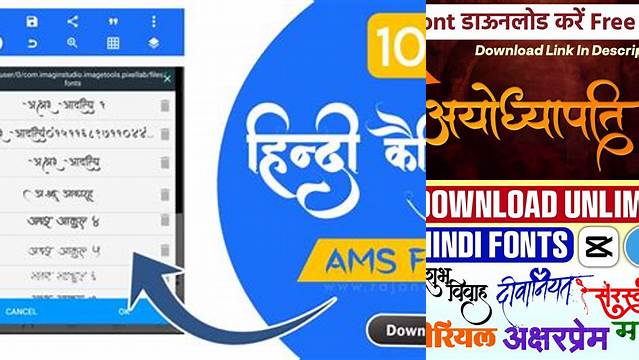
Free Hindi Calligraphy Fonts For PixelLab: Download Guide
Hey guys! If you're looking to spice up your designs with some beautiful Hindi calligraphy, you've come to the right place. In this guide, we'll dive into everything you need to know about finding and using free Hindi calligraphy fonts in PixelLab. Get ready to add that artistic touch to your projects, whether you're a seasoned designer or just starting out. Let's get started!
1. Why Use Hindi Calligraphy Fonts in PixelLab?
So, why bother with Hindi calligraphy fonts in the first place? Well, the answer is pretty simple: they add a unique flair and cultural richness to your designs. Hindi calligraphy fonts can instantly transform a plain text message into something visually stunning and emotionally engaging. Think about it – a simple greeting card becomes a work of art, a social media post grabs attention, and a poster truly stands out from the crowd. PixelLab, being a versatile mobile graphic design app, makes it super easy to incorporate these fonts. The ability to personalize your content with fonts that reflect a specific culture or style gives your designs a professional and polished appearance. Plus, using calligraphy fonts can help you express complex emotions and ideas in a way that plain text simply can't match. By choosing the right Hindi calligraphy font, you are not just adding text, you are adding personality and depth to your creative endeavors. It's about connecting with your audience on a deeper level and making your message memorable. Remember, a well-chosen font can speak volumes, conveying everything from joy and celebration to seriousness and contemplation. With PixelLab and these amazing fonts, you'll have all the tools you need to make your designs pop.
Benefits of Using Hindi Calligraphy Fonts
Using Hindi calligraphy fonts in PixelLab offers several advantages. Firstly, it helps you connect with a broader audience. India has a rich cultural heritage, and incorporating Hindi script can resonate with a large segment of the population. Secondly, it adds a touch of artistry to your designs. Calligraphy fonts are inherently more creative and visually appealing than standard fonts. Thirdly, these fonts enhance the aesthetic appeal of your projects. Whether you're creating posters, social media graphics, or digital art, calligraphy fonts can make your work stand out. These fonts provide a sophisticated and elegant look. Finally, these fonts can be used across various projects. From personal projects to professional endeavors, Hindi calligraphy fonts are incredibly versatile.
4. How to Use Hindi Calligraphy Fonts Effectively in PixelLab
Now comes the fun part: using those awesome free Hindi calligraphy fonts in your PixelLab designs! The key to using these fonts effectively lies in understanding their strengths and limitations. First, select the font that best fits the message you want to convey. Some fonts are elegant and suited for formal occasions, while others are more playful and perfect for casual designs. Experiment with different fonts to see which one complements your overall aesthetic. Consider the context of your design. Is it a social media post, a poster, or something else? Choose a font that is readable and that fits the design's purpose. Next, pay attention to readability. While calligraphy fonts are beautiful, they can sometimes be difficult to read if the text is too small or the design is complex. Ensure that your text is large enough and that there is sufficient contrast between the text and the background. Use these fonts strategically. Avoid overusing them; a touch of calligraphy can be impactful, but too much can be overwhelming. Consider pairing your calligraphy font with a simpler, more legible font for body text or other design elements. Also, consider the spacing. Adjust the line height and letter spacing to ensure readability and visual appeal. Experiment with colors and effects to further enhance your text. Use the color palette to highlight your text. You can also apply effects like shadows, outlines, and textures to create a more dynamic look. Finally, always preview your design on different devices and screen sizes to ensure that your text remains clear and beautiful.
Tips for Stunning Designs
To create stunning designs with Hindi calligraphy fonts, consider the following tips. First, choose fonts that match your design's theme. Use the right colors and effects. Create a hierarchy of text using various font sizes and styles. Always ensure that your text is legible. Pair calligraphy fonts with simpler fonts for body text. Experiment with spacing and contrast. Finally, get feedback from others to improve your designs.
5. Customizing Your Hindi Calligraphy Text
So, you have your text and your chosen free Hindi calligraphy fonts in PixelLab. Now, it's time to get creative and customize your text to make it truly unique! PixelLab offers a variety of tools that let you tweak your text to perfection. Start by adjusting the size, color, and position of your text. You can experiment with gradients, patterns, and textures to add depth and visual interest. PixelLab allows you to play around with shadows, outlines, and 3D effects. Shadows can help your text pop off the background, while outlines can improve its readability. 3D effects can give your text a more realistic look. You can also adjust the spacing between letters (kerning) and lines (leading) to improve readability and visual balance. Also, explore text curving. This feature can be useful for adding text along a curve, perfect for logos or decorative elements. Try combining different effects to create unique styles. The possibilities are endless! Don't be afraid to experiment and try new things. The best way to find what works is by playing around with the different options available in PixelLab. Ultimately, the goal is to make your text not only visually appealing but also perfectly aligned with your overall design aesthetic. Take the time to fine-tune your text, and you'll see how it can elevate your designs from good to great. Remember to preview your design on different devices and screen sizes to make sure everything looks perfect. Have fun and enjoy the process!
30. Conclusion: Embracing the Beauty of Hindi Calligraphy in PixelLab
In conclusion, using free Hindi calligraphy fonts in PixelLab opens up a world of creative possibilities. By understanding where to find fonts, how to install and use them effectively, and avoiding common pitfalls, you can create stunning designs that resonate with your audience. Embrace the beauty of Hindi calligraphy, experiment with different styles, and let your creativity shine. PixelLab provides a user-friendly platform to bring your design visions to life. So, go ahead, download those fonts, and start creating beautiful, culturally rich designs today! Happy designing, and enjoy your creative journey!